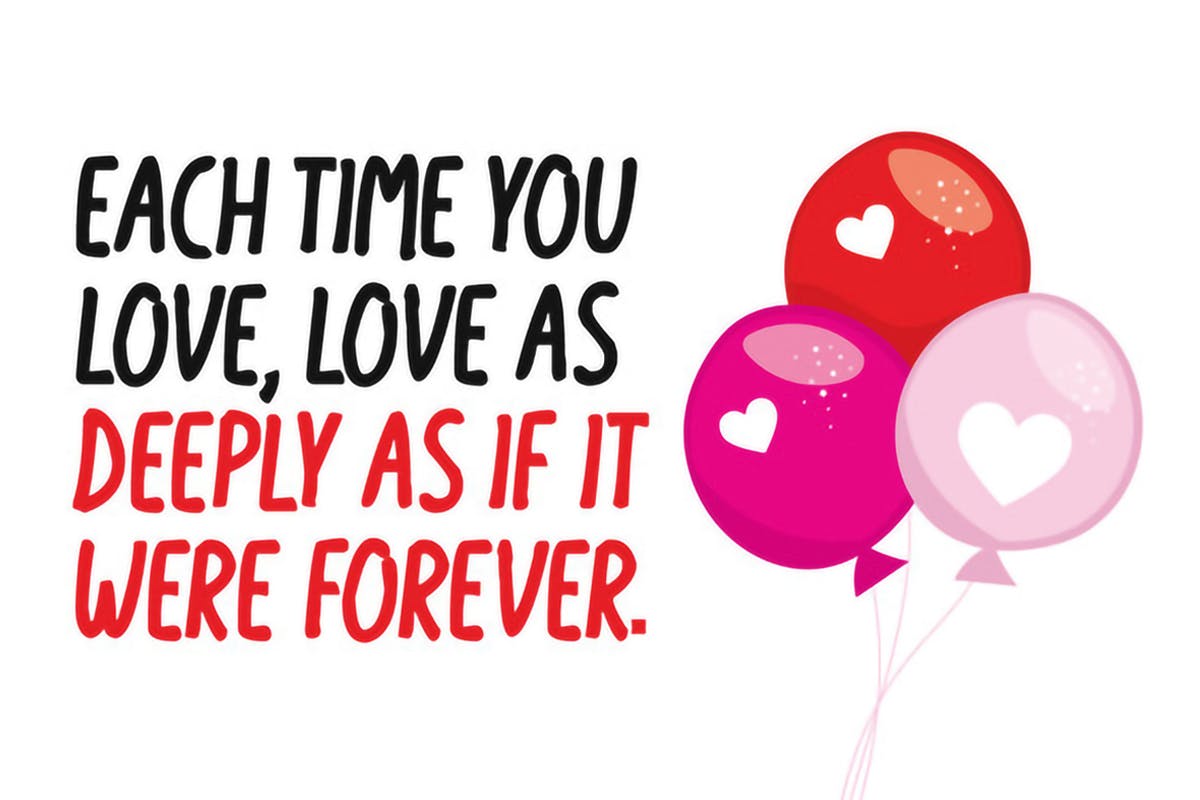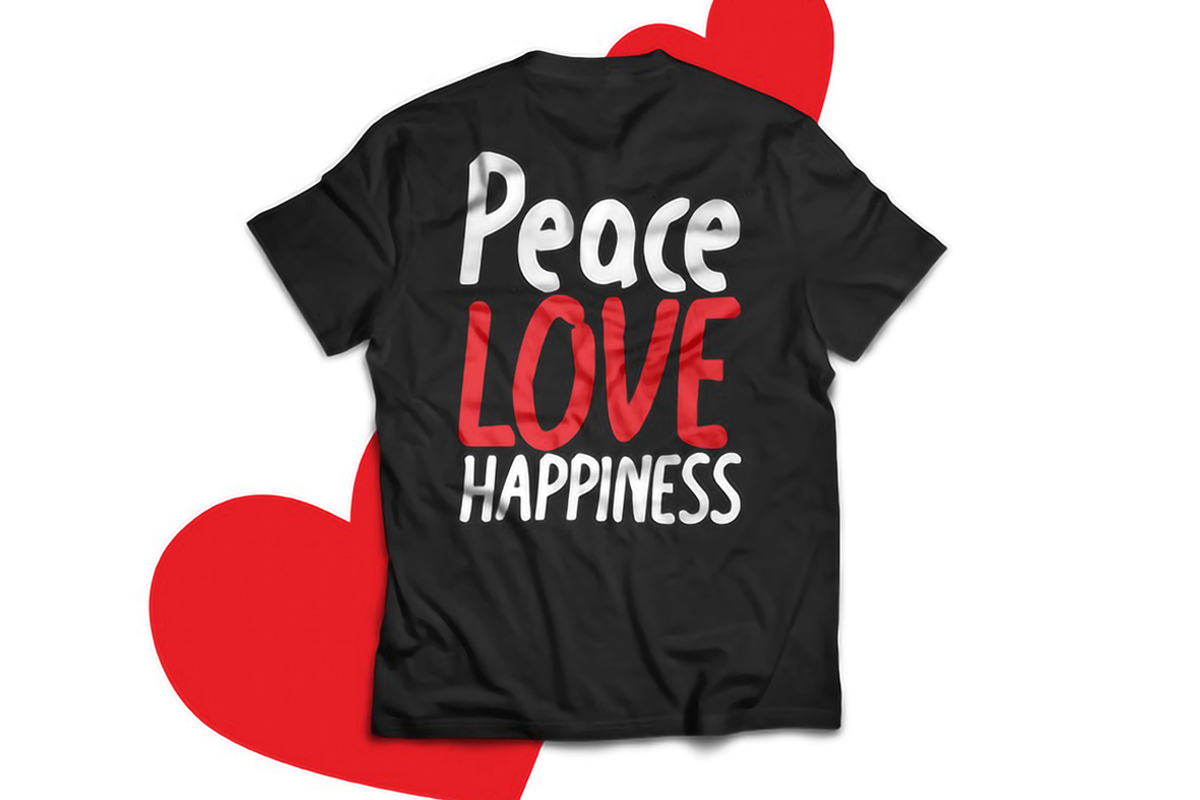
Free Valentine Monster Font
Free Valentine Monster Font is a display font which designed for valentine moment. It is a very good looking font to use it on your projects that related to valentine. Therefore, the author created this font with a special character to represent the awesome moment. This font is suitable for flyers, t-shirt, banners, pin, keychain, stickers, merchandise, and much more. It is ready to use by installing it on your devices, comes with two format files which are OTF and TTF that will make you adapt based on your device usage as well. However, this demo font is available for a personal license, but you can get more features by purchasing the premium version.